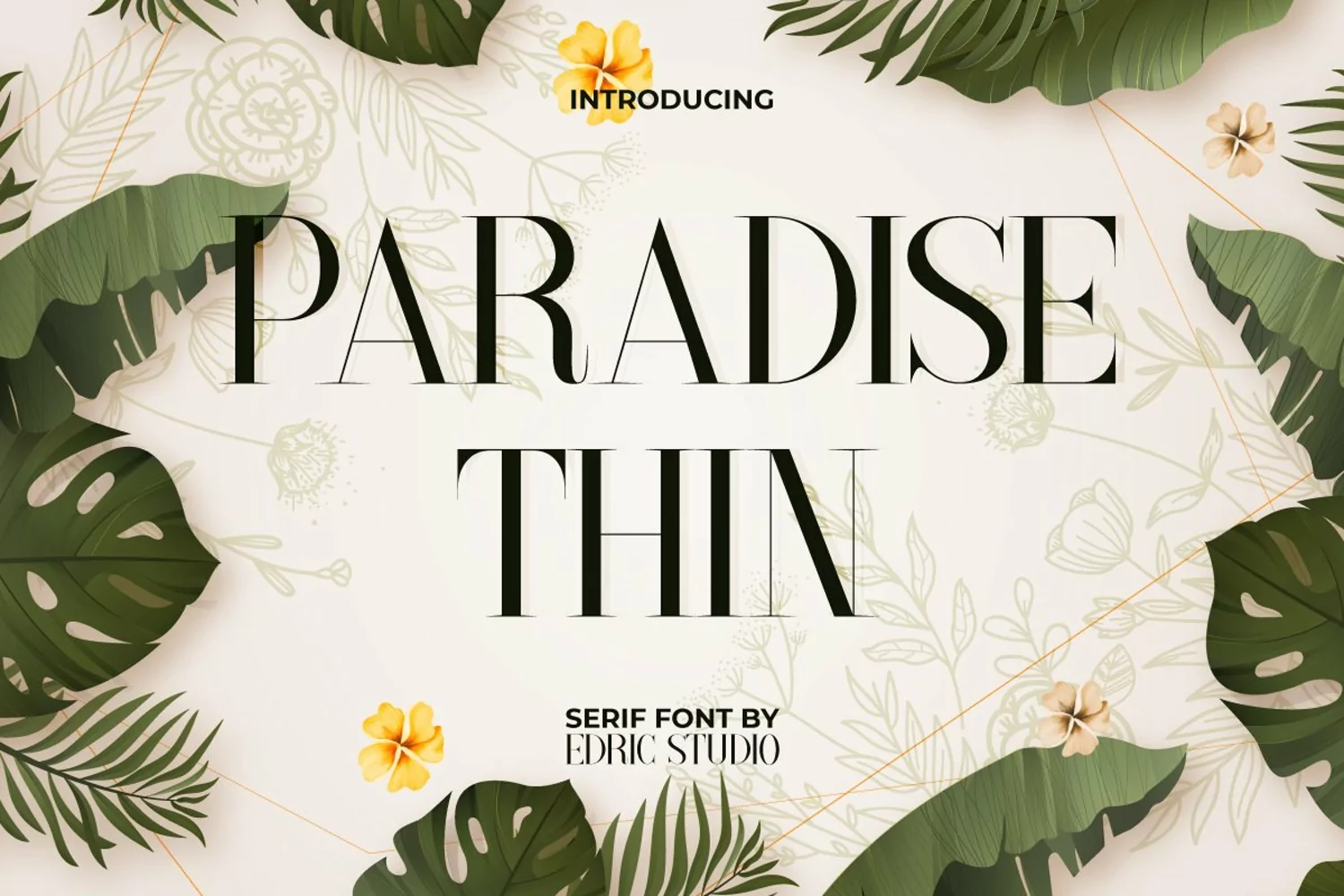
Paradise Thin
Paradise Thin Font is a modern serif font with sleek style, created by EdricStudio. This typeface has a mixed amazing bold and thin shape that makes it different and feels modern which would be great for an industry, like boutique, craft, fashion, homeware, hotel & resort, journalist, publishing, restaurant, writer, and more!
Paradise Thin Font consists of two styles: Regular and Italic which comes with a full set of Uppercase and Lowercase Basic Characters, Number, large range of Punctuation and Symbol. It has a stunning characters set, perfectly managed with well spaced and kerning. Paradise Thin Font will be great for any projects (with extended ) including: blog headers, business card, labels, letterhead, magazine, signage, title, tote bag design, etc.